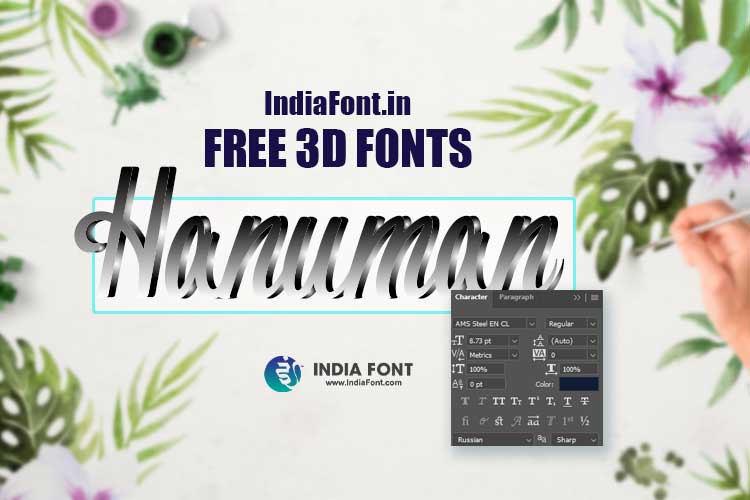
3D Hindi Fonts Free Download - Color Fonts Collection
Discover stunning 3D Hindi fonts and color fonts for free download. Complete collection of dimensional typography with depth, shadows, and vibrant colors for creative designs.
In the realm of design, innovation knows no bounds, and 3D Hindi fonts stand as a testament to this creative exploration. Imagine text that goes beyond the confines of the screen, that dances with light and shadow, captivating viewers with its depth and realism. At IndiaFont, we are thrilled to introduce you to a world where typography takes on a third dimension, offering a captivating blend of tradition and innovation.
Imagine your text leaping off the page, capturing attention with its lifelike appearance. 3D fonts accomplish just that. These fonts aren't confined to the flat surface; they possess a three-dimensional quality that brings them to life. The interplay of light and shadow gives them an immersive depth that makes your designs pop, ensuring they won't go unnoticed.
Dimensional Depth
Experience typography that transcends flat surfaces with realistic shadows and lighting effects.
Vibrant Colors
Incorporate a spectrum of hues with our innovative color font technology for stunning visuals.
Eye-Catching Impact
Make your designs stand out with typography that commands attention and won't be ignored.
Cultural Heritage
Blend traditional Hindi script with modern 3D innovation for authentic yet contemporary designs.
Best 3D Hindi Fonts Free Download
Premium Color Fonts Collection:
Stunning dimensional Hindi font with vibrant color effects and realistic depth
Elegant color font with sophisticated 3D styling perfect for premium designs
Beautiful dimensional font capturing the essence of eyes with colorful depth
Festival-inspired 3D font with rich colors perfect for celebratory designs
Moon-inspired dimensional typography with ethereal color gradients
Playful and dynamic color font with lively 3D characteristics
Ornamental 3D font with decorative color elements and traditional charm
Life-celebrating dimensional font with vibrant color expressions
Blessing-inspired 3D typography with colorful spiritual aesthetics
English color font with 3D effects perfect for multilingual designs
Fresh spring-inspired English color font with vibrant dimensional appeal
Reflective 3D English font with mirror-like color effects
In our pursuit of enhancing your creative endeavors, we proudly introduce the AMS Fonts series. These fonts are meticulously designed to fuse the richness of Hindi script with the captivating allure of three-dimensionality. Whether you're aiming for a bold and impactful message or a subtle and sophisticated touch, the AMS Fonts series has a 3D font to suit every creative ambition.
Prepare to be dazzled by our collection of color fonts, also known as SVG fonts. These fonts redefine the boundaries of creativity by marrying color and dimensionality, creating a visual symphony that is as enchanting as it is engaging. With color fonts, your designs transcend the ordinary, inviting your audience to experience a kaleidoscope of emotions through the fusion of vibrant shades and dynamic three-dimensional forms.
As champions of creativity, we are excited to offer you a selection of free 3D Hindi fonts that you can seamlessly integrate into your projects. These fonts are not mere letters; they are a conduit for your imagination to soar. With our AMS Fonts series and color fonts, you have the tools to create designs that captivate, inspire, and leave an indelible mark on your audience.
Discover Color Font Technology
Experience the revolutionary world of SVG color fonts that bring multiple colors, gradients, and even transparency effects to your typography projects.
But that's not all – we have a secret ingredient that elevates our 3D fonts to a new level: color fonts. Our color fonts, also known as SVG fonts, offer you the ability to incorporate a spectrum of hues into your 3D typography. This marriage of colors and dimensionality creates an experience that goes beyond words, evoking emotions and engaging your audience on a visceral level.
SVG Technology
Advanced vector graphics technology enables smooth scaling and crisp rendering at any size.
Multi-Color Support
Single font files containing multiple colors, gradients, and transparency effects.
Easy Integration
Simple installation and usage across modern design software and web browsers.
Design Freedom
Create stunning visuals without complex layering or multiple font combinations.
Combine the artistry of calligraphy with the allure of three-dimensional design, and you get the mesmerizing 3D calligraphy fonts. These fonts go beyond the conventional, weaving strokes of elegance and sophistication into a world of depth and vibrancy. Whether you're crafting invitations, posters, or social media graphics, 3D calligraphy fonts add a touch of opulence to your creations.